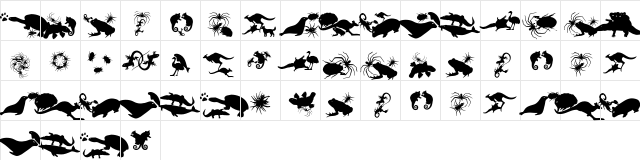
LetsDance Regular
Design Context for LetsDance Typeface
LetsDance is a composed and adaptable typeface that performs quietly and consistently across a wide range of design contexts.